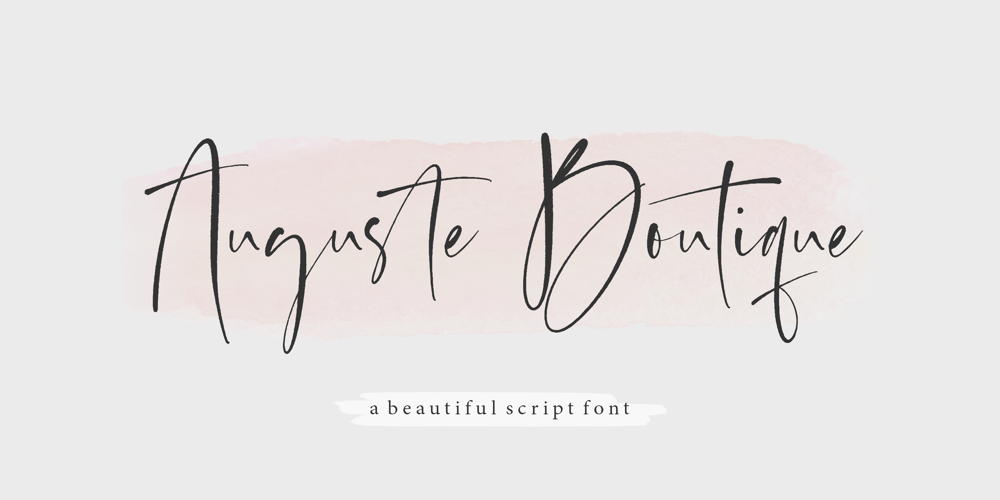
Auguste Boutique
Auguste Boutique font
Auguste Boutique Font Family was designed by Restu Angga and published by Balpirick. Auguste Boutique contains 1 styles and family package options. Auguste Boutique is a Modern Calligraphy Font.Auguste Boutique is a dazzling script font. Whatever the topic, this font will be a wonderful asset to your font library, as it has the potential to enhance any creation.- also multilingual support- LigaturesEnjoy the font, feel free to comment or feedback, send me PM or email.Thank you!